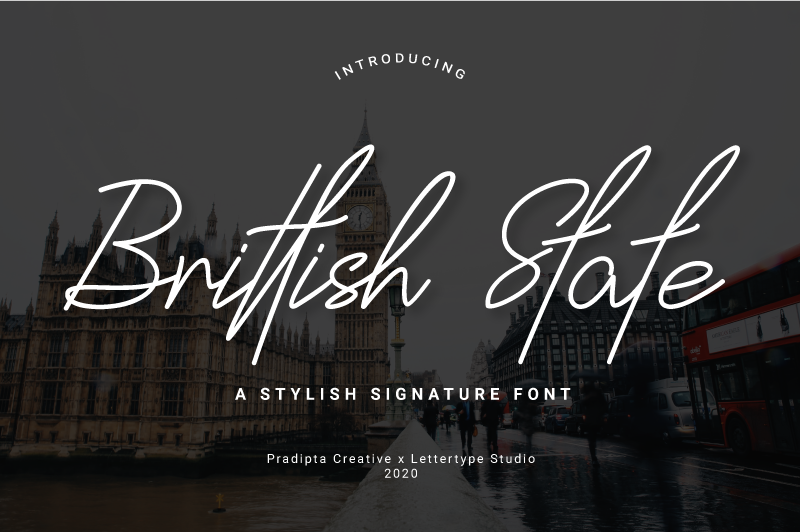
Brittish State Font
About Brittish State
Brittish State Script font which stylish natural handwritten font with a beautiful curve in every single corner.
Brittish State Script is perfect for branding projects, logos, wedding designs, social media posts, advertisements, product packaging, product designs, label, photography, watermark, invitation, stationery, and any projects that need handwriting taste.